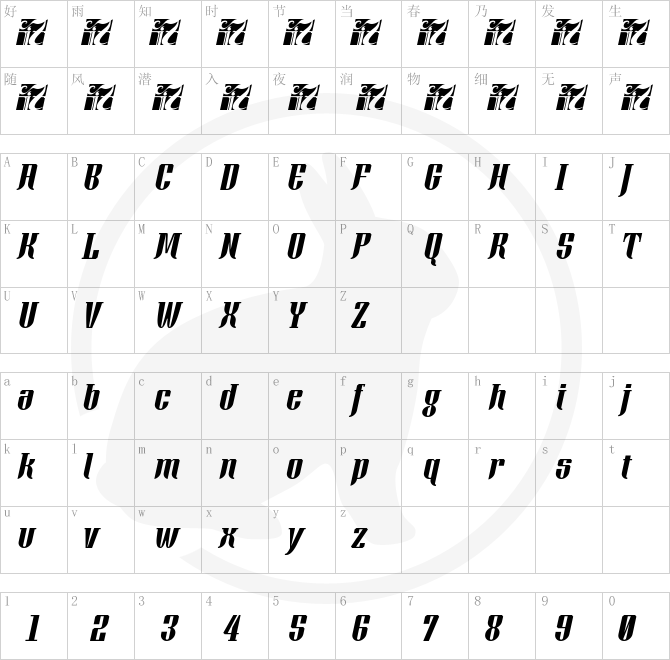
- Font Name:Xacose
Xacose-Italic.otf is a very beautiful artistic font, Xacose-Italic.otf is widely used in the design and printing of various books and pictures,Xacose-Italic.otf has a strong visual impact,Xacose-Italic.otf is a commonly used font in newspapers, magazines and books, and is used in posters, e-commerce Poster design, store design, logo design, font design and other fields.Xacose-Italic.